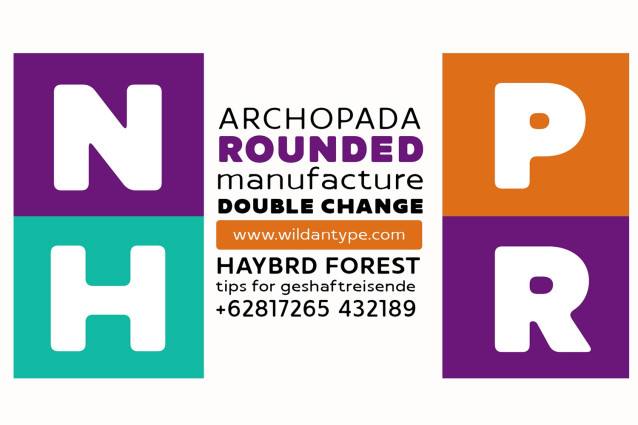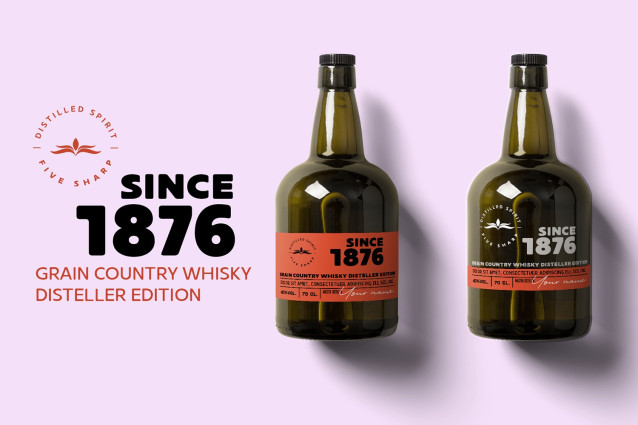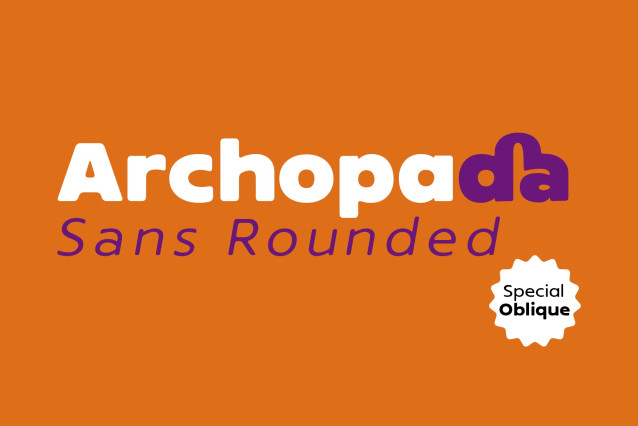
Archopada Rounded Font Family
Archopada Rounded Font Family – Archopada Font is a modern, humanist, strong statement typeface with clean lines. Inspired by classic geometric and fun typefaces. This font perfect for adding a title to your portfolio or website, magazine, branding, id card or you can use for body text in long paragraph.
This set includes 6 weight humanist with oblique. If you need fun taste, We also prepared rounded style plus 6 weight and oblique style. Archopada consists of upper and lowercase, numerals, ligatures plus some stylistic alternative characters.